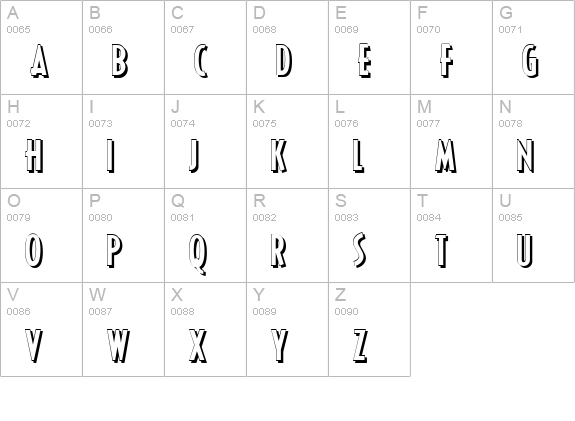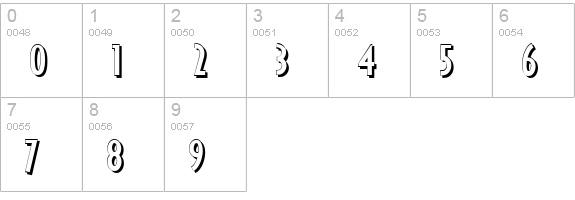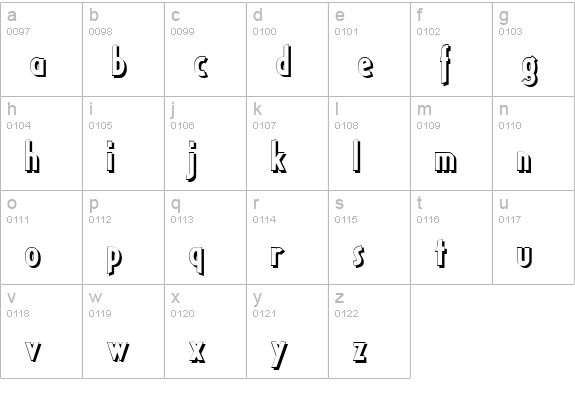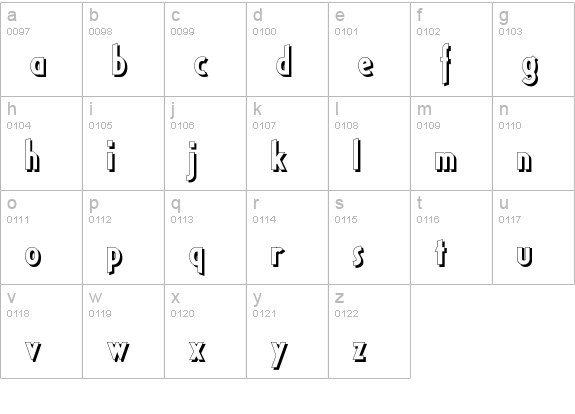
Ricks American NF Font Details
Rick's American NF font is a bold and versatile typeface that exudes a classic American aesthetic with a modern twist. Its strong, clean lines and distinct character make it perfect for a wide range of design projects, from branding to editorial layouts. This font is freely available for download at FontsMarket.com, allowing designers and creatives to access its unique charm and versatility without any cost. Its timeless appeal and easy readability make it a valuable addition to any designer's toolkit, whether for digital or print applications. With Rick's American NF font, you can effortlessly evoke a sense of nostalgia and Americana in your designs, while also maintaining a fresh and contemporary look. Its sleek design and broad range of weights and styles make it a go-to choice for projects that require a touch of classic American style. Download this font for free today at FontsMarket.com and start adding a touch of timeless elegance to your designs.